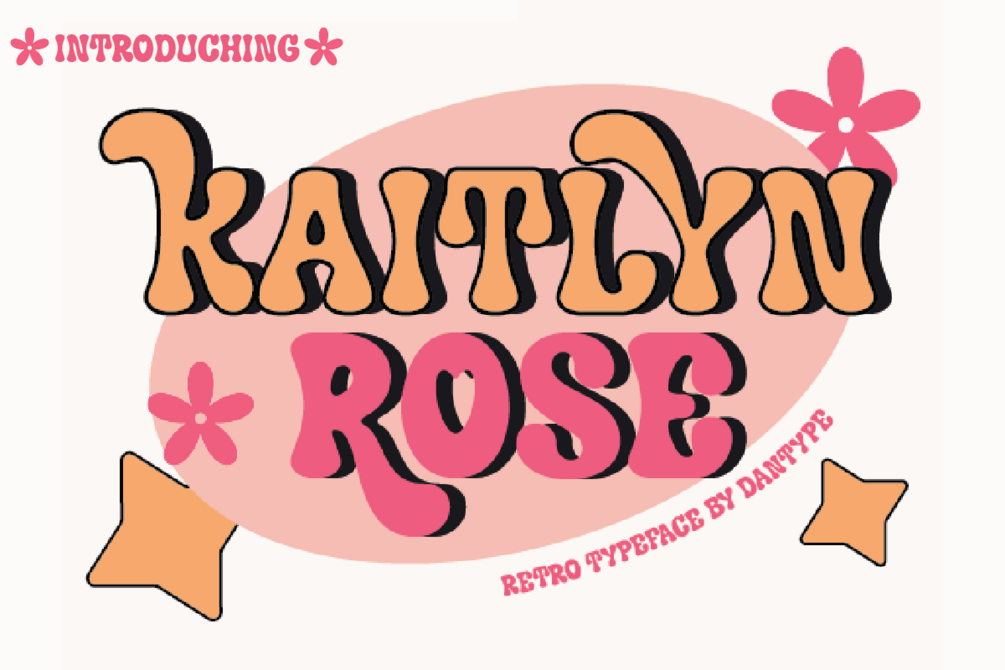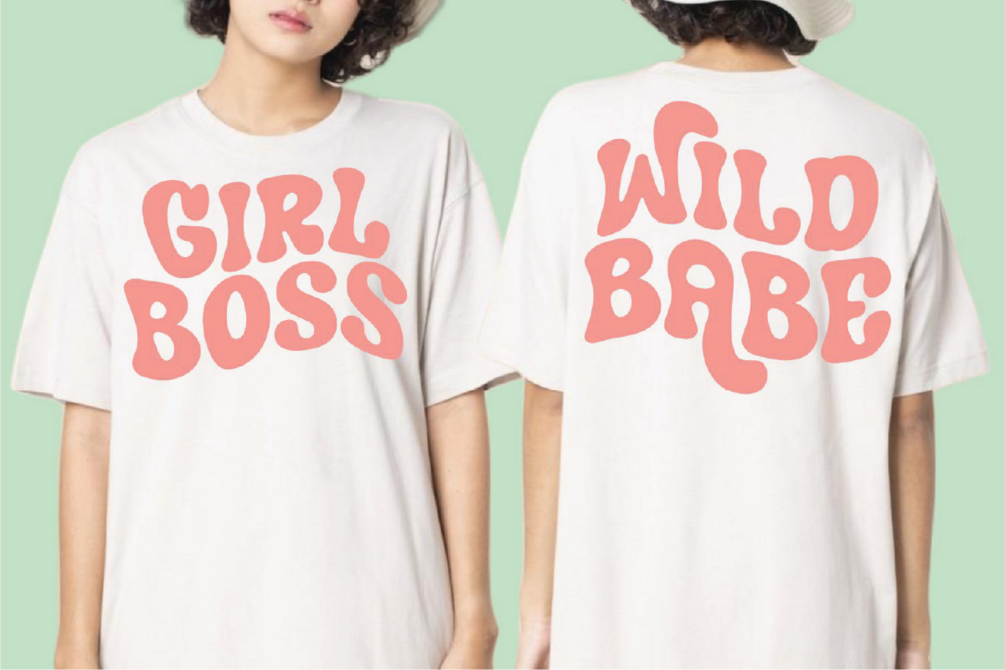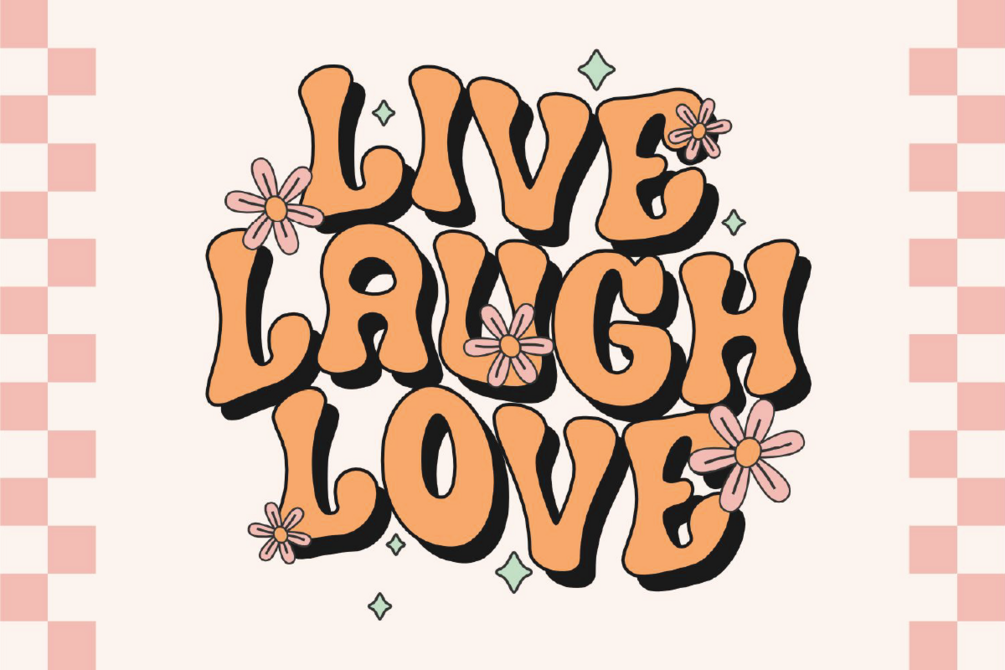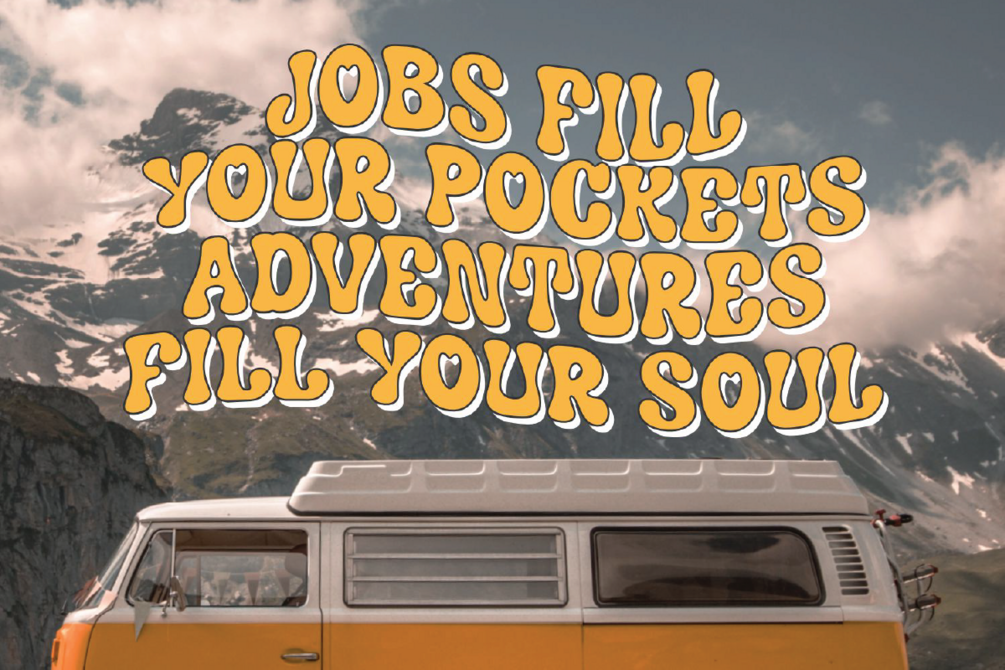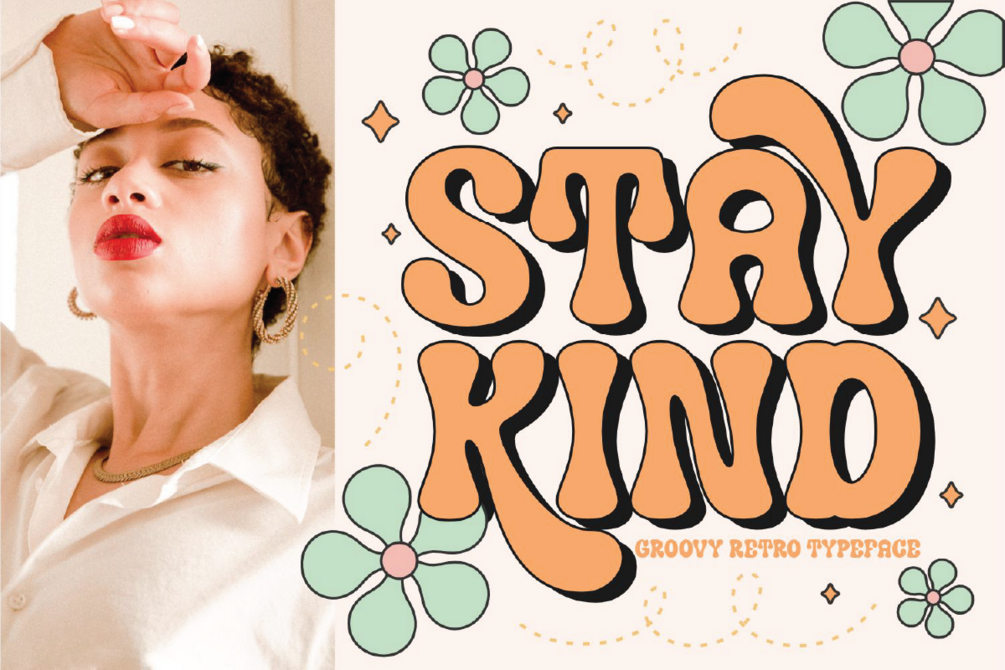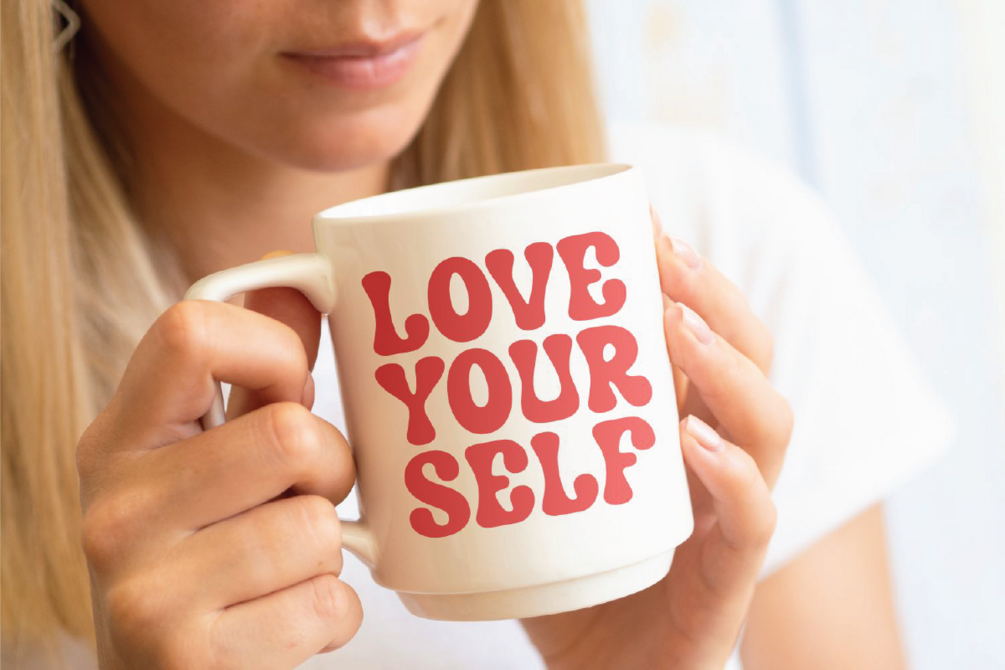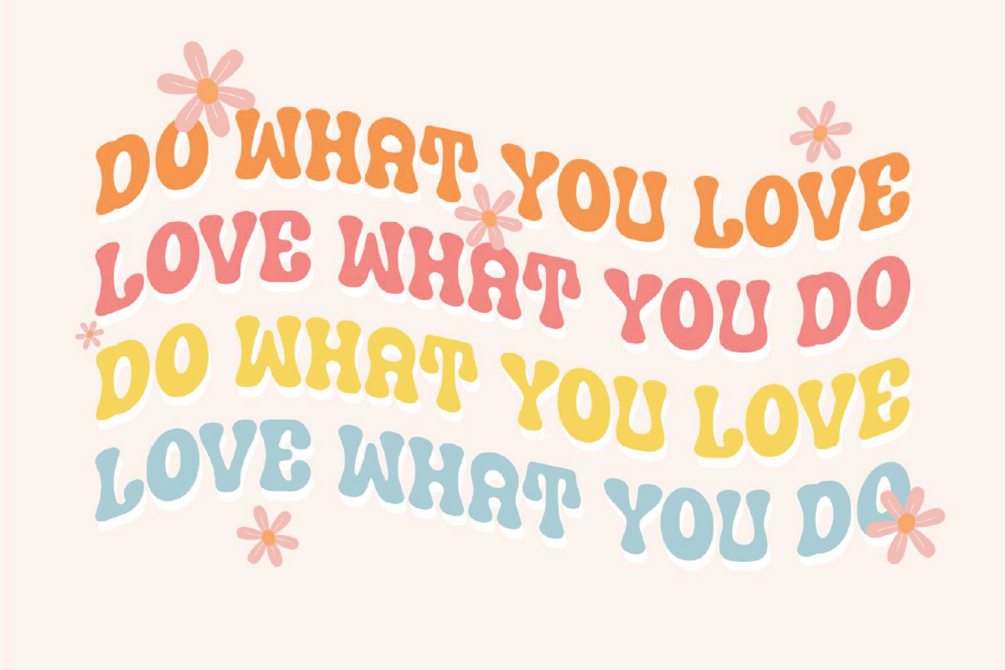
Kaitlyn Rose
Kaitlyn Rose Display font. This font would be perfect for photography, watermarks, social media posts, advertisements, logos & branding, invitations, product design, labels, stationery, product packaging, special events, and other projects.